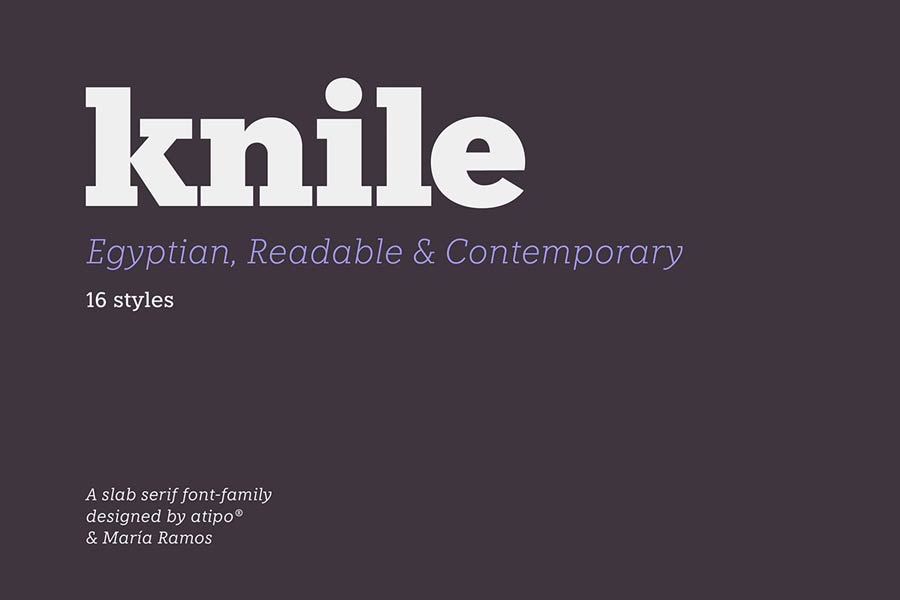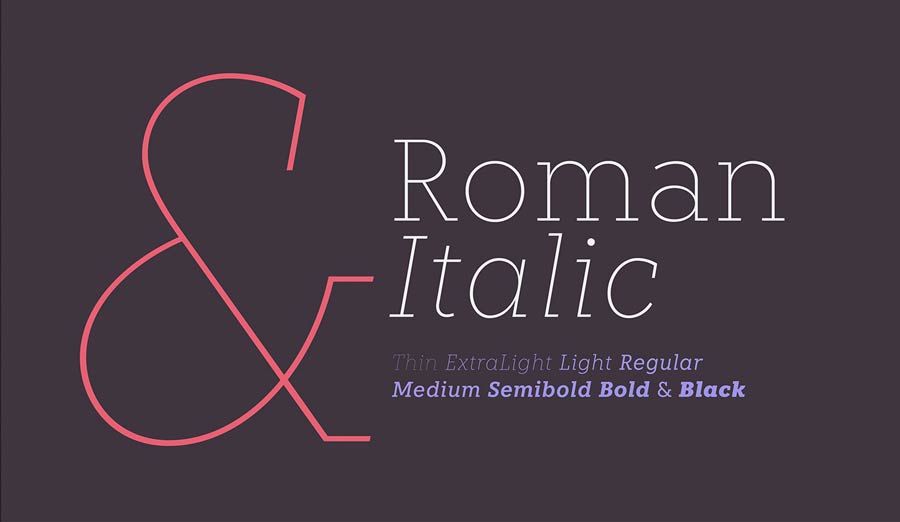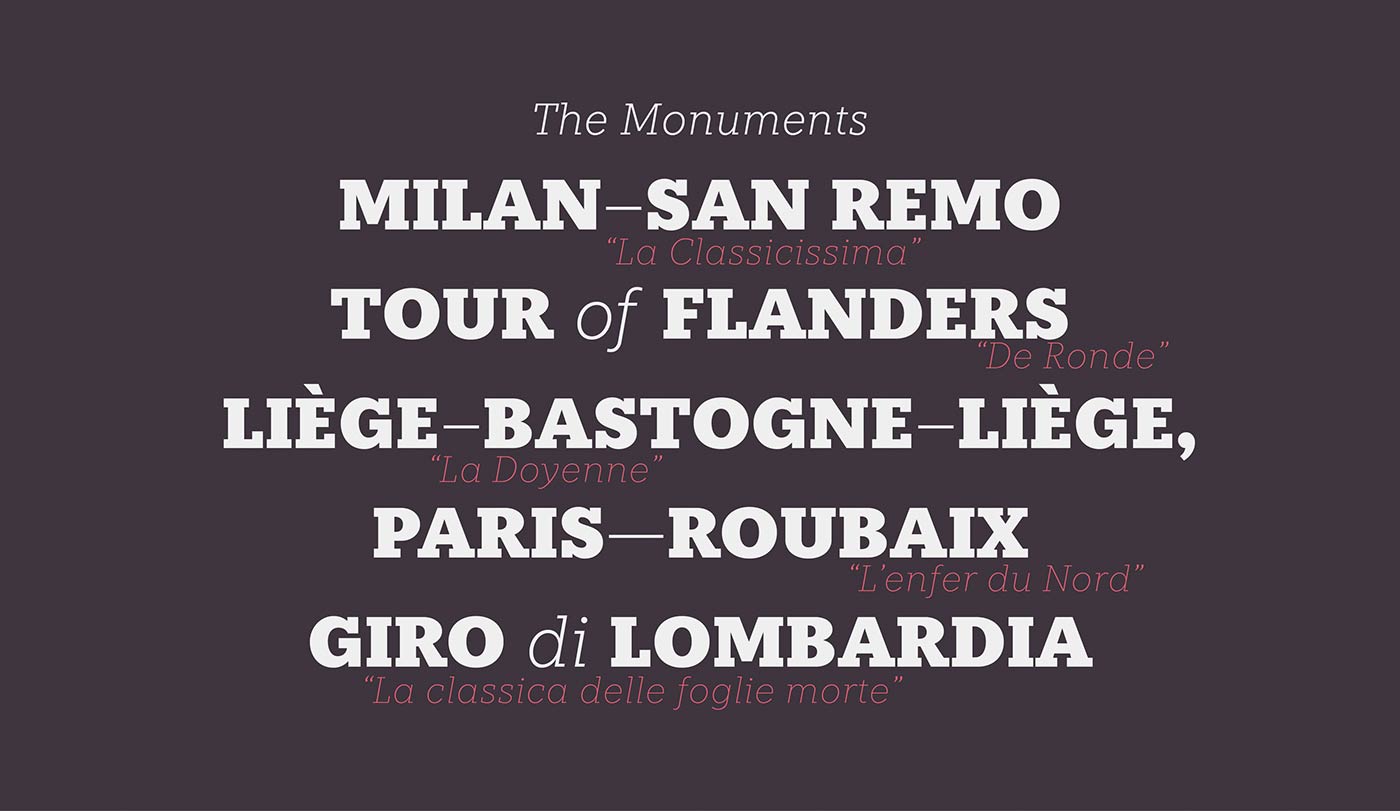
Knile is the latest font family from my favourite type foundry Atipo. This slab serif font has a total of 8 weight and each comes with italic version as well, which makes it a total of 16 font styles. The font works great on both headlines and body text, thanks to its high legible design. You can download the regular and italic font style for free, or pay for the whole family with fraction of price.
- Designer: Atipo
- Styles: 2
- Category: Slab Serif, Web Font